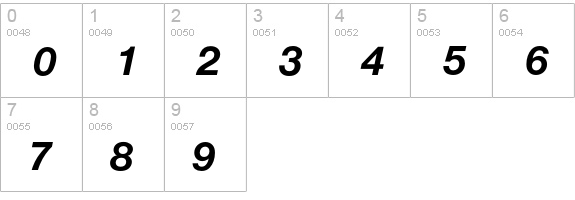
Olnova-BoldIta Font Details
Introducing Olnova-BoldIta, a bold and italic font that exudes modernity and sophistication. With its unique blend of strong lines and stylish curves, Olnova-BoldIta is perfect for making a bold statement in your designs. Whether you're creating eye-catching headlines or stylish branding, this versatile font has got you covered. What's even better is that Olnova-BoldIta is available for free download at FontsMarket.com. Yes, you read that right - you can get your hands on this stunning font without spending a dime. So why wait? Elevate your designs with Olnova-BoldIta today and make a lasting impression with its bold and distinctive aesthetic.